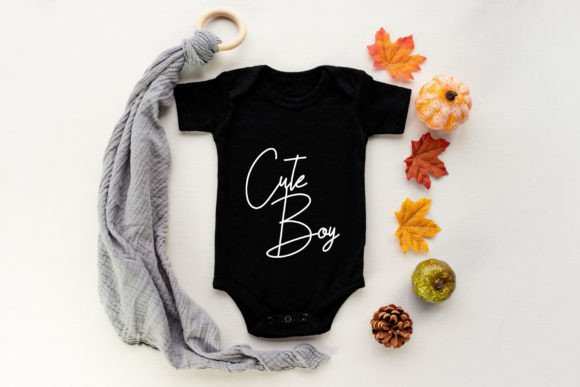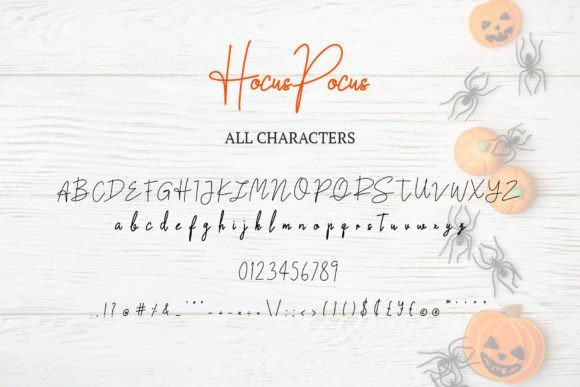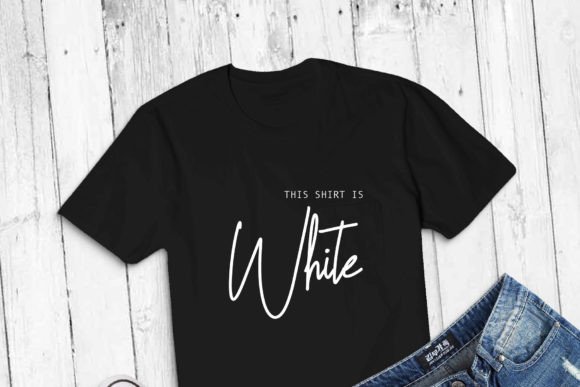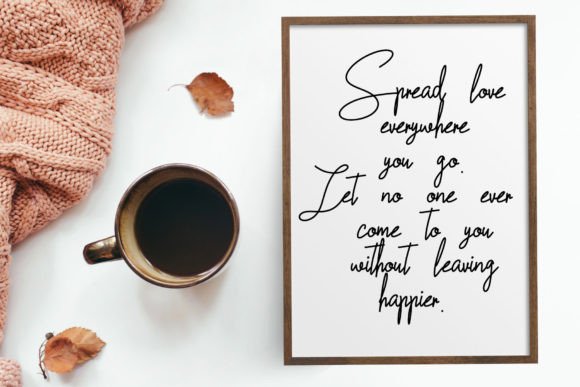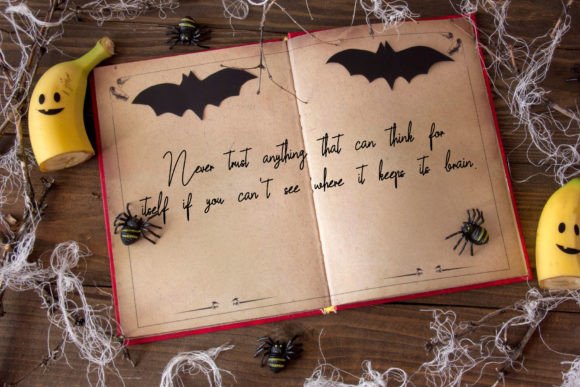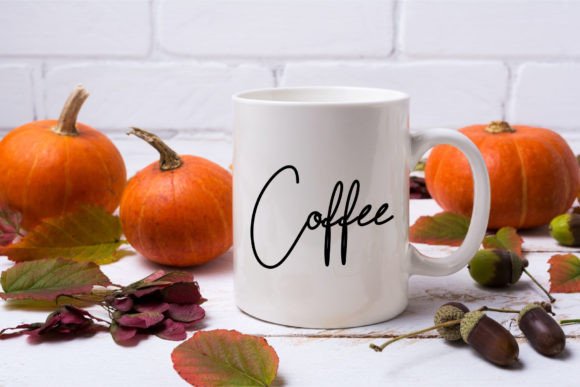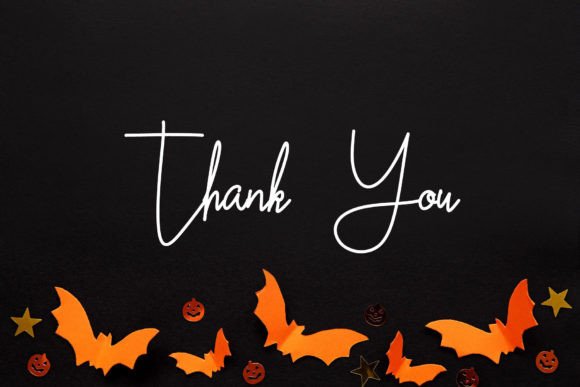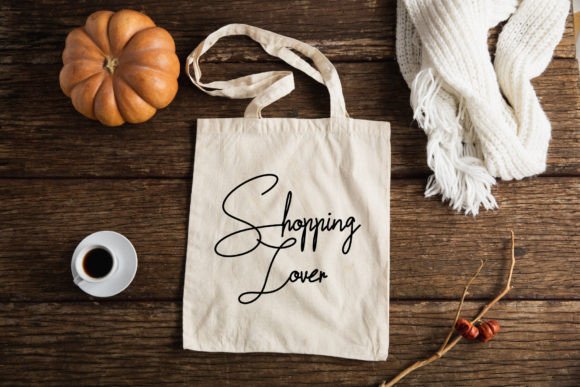
Hocus Pocus Font
About Hocus Pocus Font
**Hocus Pocus Font: Modern Elegance in Handwritten Script**
Introducing Hocus Pocus, a handwritten font that combines modern style with an elegant touch. This versatile typeface brings a charming accent to your design projects and is perfect for various applications. Here’s why Hocus Pocus is a standout font:
**Modern and Elegant:** Hocus Pocus strikes the perfect balance between modernity and elegance. Its contemporary feel adds a touch of sophistication to your designs.
**Versatile Usage:** This font is highly versatile and can be used for a wide range of applications, including logos, branding, invitations, greeting cards, wedding cards, and social media posts.
**Charming Accent:** Hocus Pocus adds a charming accent to your text, making it suitable for projects that require a unique and eye-catching font.
**Logo Magic:** Elevate your brand with Hocus Pocus. Its elegant yet approachable style can help your logo stand out and leave a lasting impression.
**Wedding Elegance:** Create elegant wedding invitations, save-the-date cards, and other wedding-related materials that reflect the romantic and sophisticated side of your special day.
**Beautiful Branding:** Use Hocus Pocus to enhance your branding materials, giving your brand a touch of modern elegance that resonates with your audience.
**Inviting Invitations:** Craft invitations that impress and invite with Hocus Pocus. Your event guests will appreciate the elegant and personalized touch.
**Greeting Card Glamour:** Make your greeting cards more memorable by using Hocus Pocus to convey heartfelt messages with style.
**Social Media Chic:** Stand out on social media platforms by incorporating Hocus Pocus into your posts, ensuring your content is both trendy and elegant.
**Create a Mood:** Hocus Pocus sets the mood for elegance and charm, making it a fantastic choice for projects that aim to evoke these emotions.
**Sophisticated Style:** Achieve a sophisticated and stylish look with Hocus Pocus, a font that effortlessly captures attention.
**Express Creativity:** Express your creative ideas with Hocus Pocus, knowing that its modern elegance will enhance the overall appeal of your designs.
**Professional Appeal:** Impress clients and partners with professionally designed materials that feature the elegant touch of Hocus Pocus.
**Visual Storytelling:** Use Hocus Pocus to enhance your visual storytelling, making your narratives more captivating and engaging.
**Memorable Brand Identity:** Create a brand identity that’s both memorable and elegant, thanks to Hocus Pocus.
**Captivate Your Audience:** With Hocus Pocus, you can captivate your audience and draw them into your content with its captivating charm.
**Timeless Elegance:** Hocus Pocus offers timeless elegance that ensures your designs remain relevant and visually appealing.
**Experience Modern Elegance:** Experience the modern elegance of Hocus Pocus as it elevates your design projects to new heights.